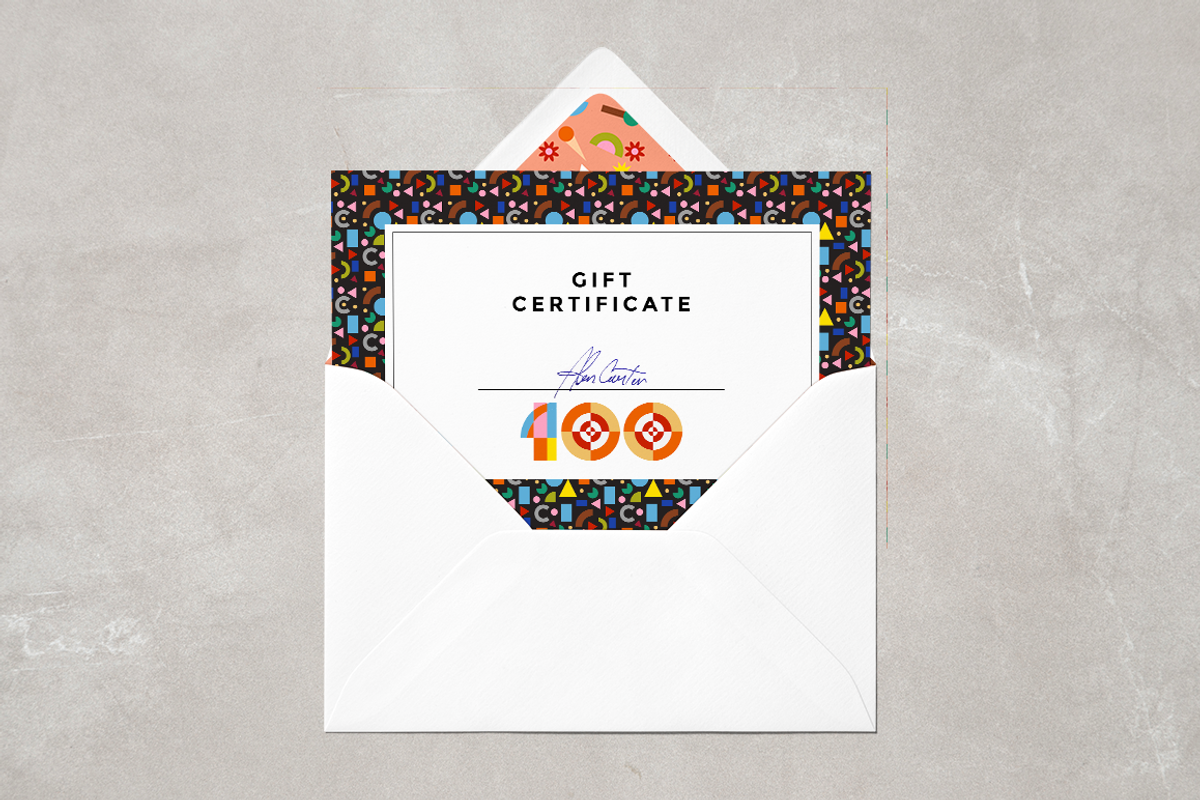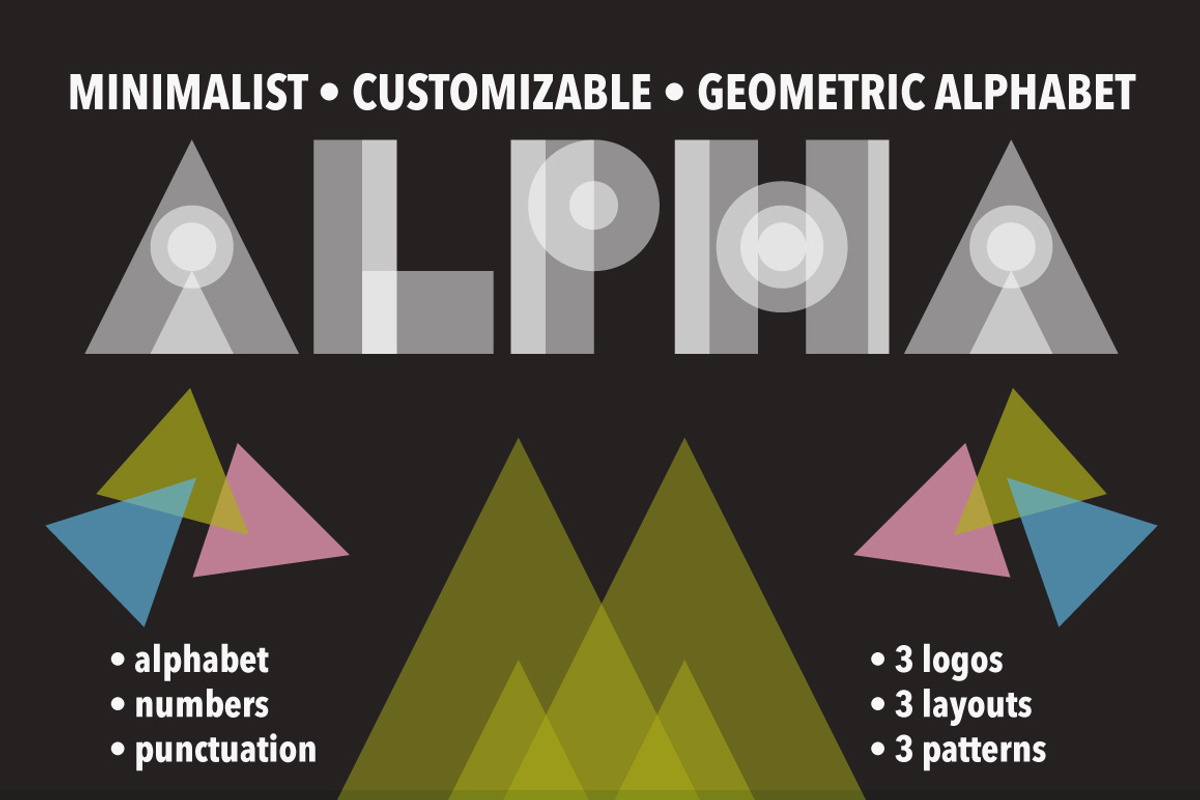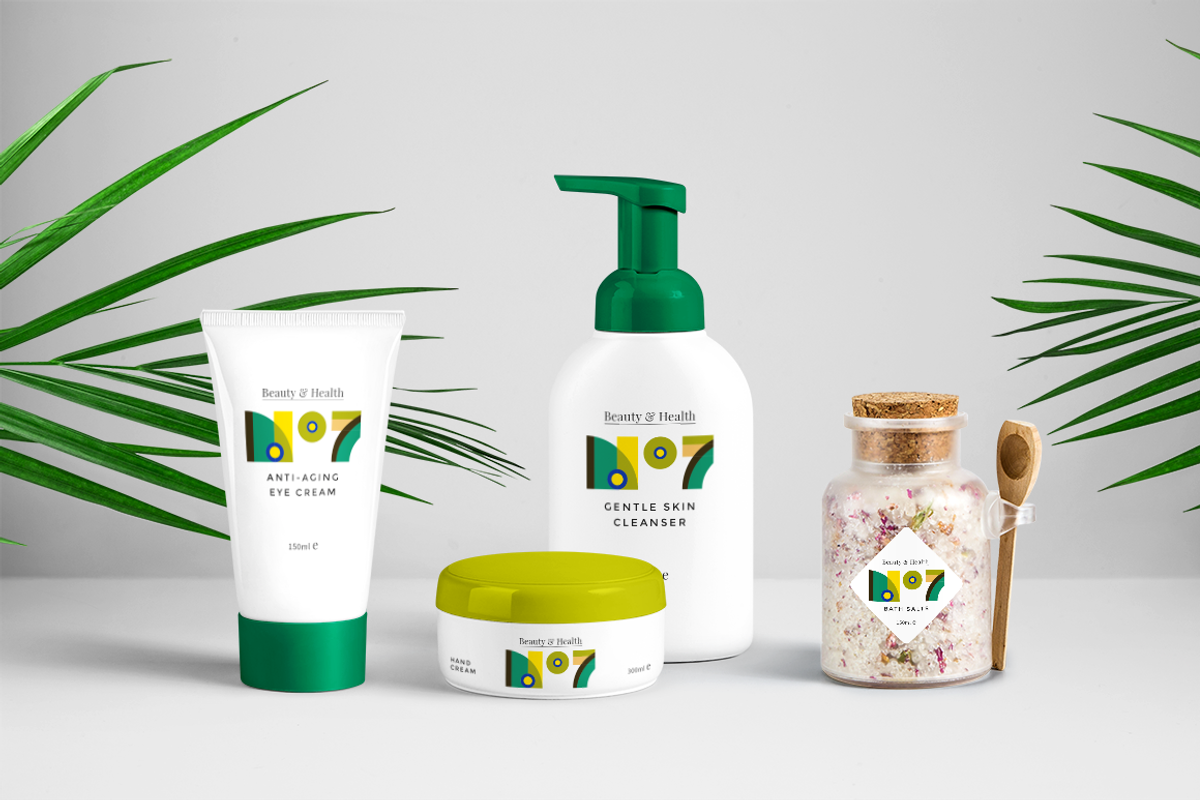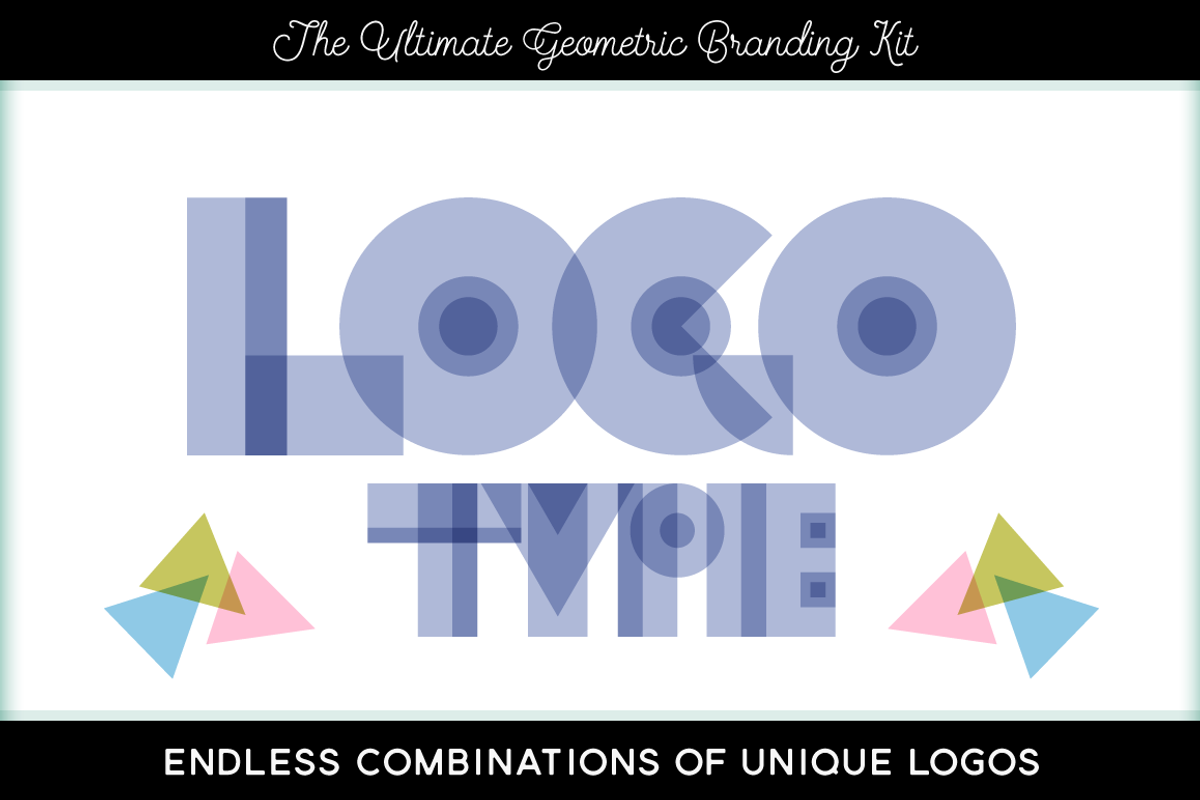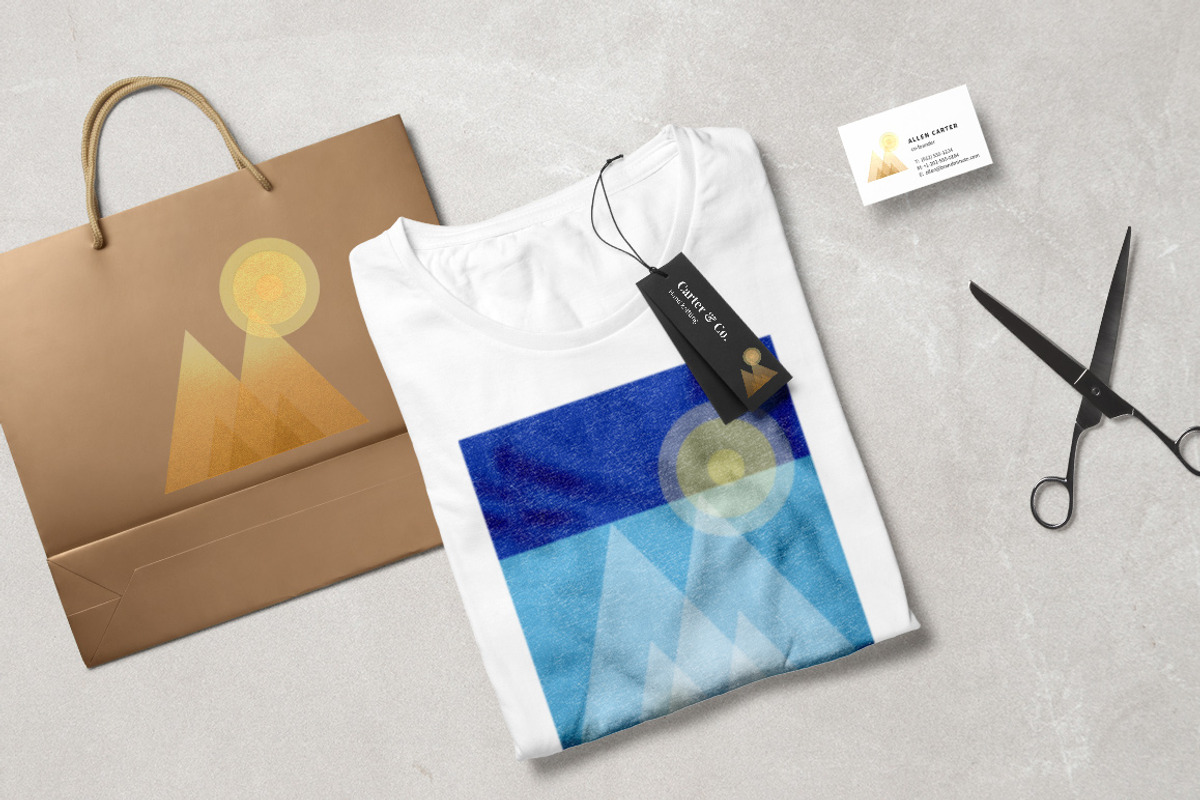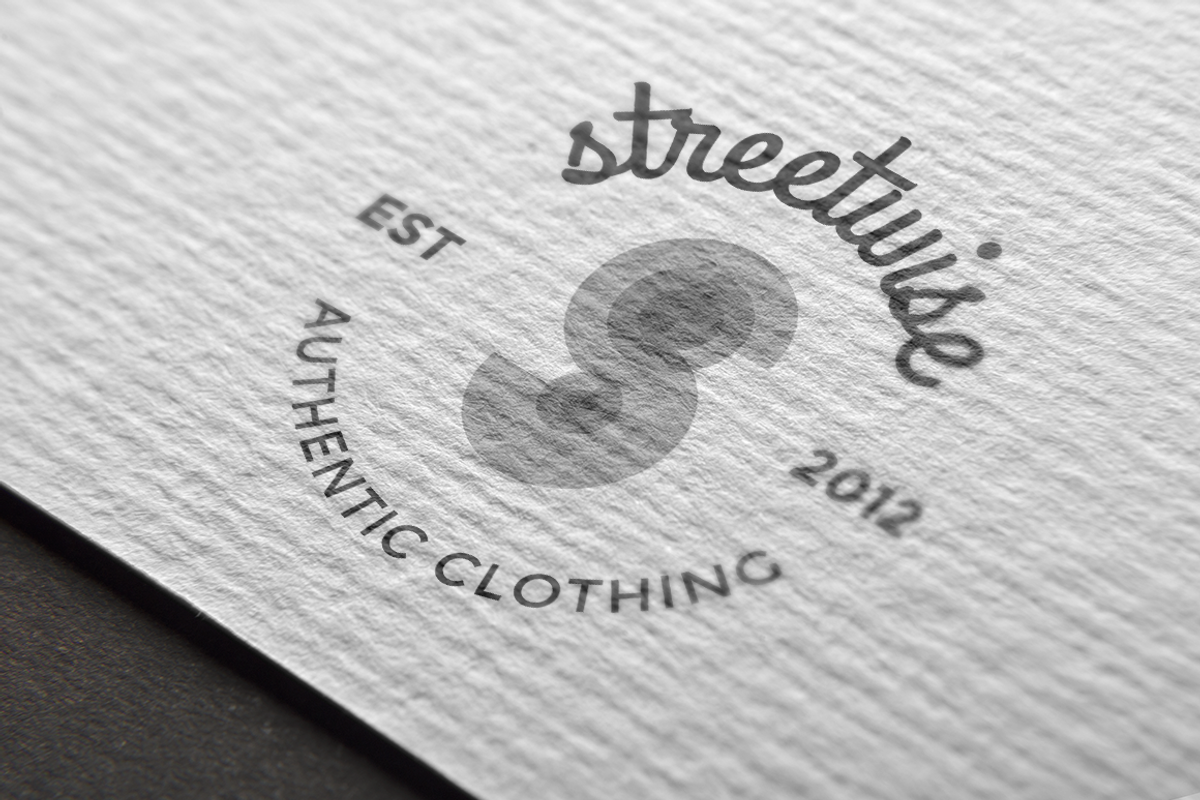
Logo Font Geometric Branding Kit
Alpha. Geometric Alphabet Kit with Letters, Numbers and Punctuation
Geometrics are such a versatile retro modern classic, aren't the? They fit perfectly for a variety of completely different areas such as logo design, invitations, monograms, branding, sci-fi, flyers, resumes and children's birthday parties. And geometrics are easy to mix and match with other styles and design elements, which also makes them super useful.
This clipart kit is inspired by modernist art and architecture. Cubism, Bauhaus, Pablo Picasso, Paul Klee, Le Corbusier, Piet Mondrian and the mid-century modern era. It's bold, it's brave, and it never goes out of date.
- Geometric alphabet with letters, numbers and punctuation marks.
- 3 style variations: transparent white, transparent dark and solid fills.
- 3 customisable logos
- 3 layouts to get your creative juices flowing (letter, A4 and square)
- 3 seamlessly repeating patterns